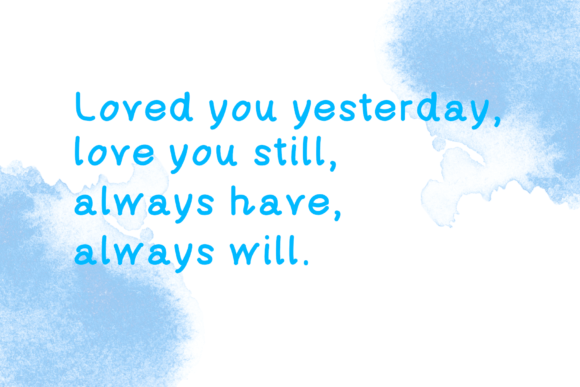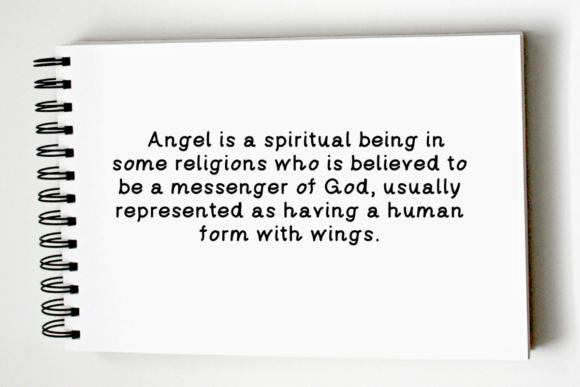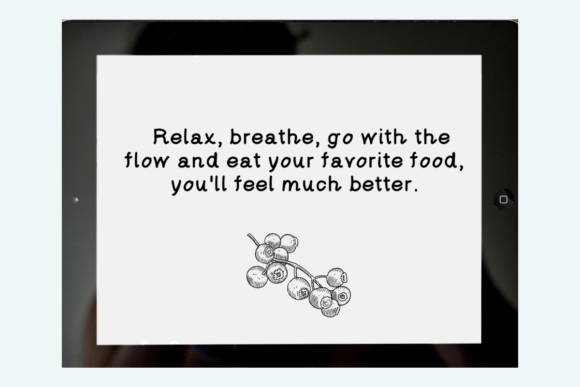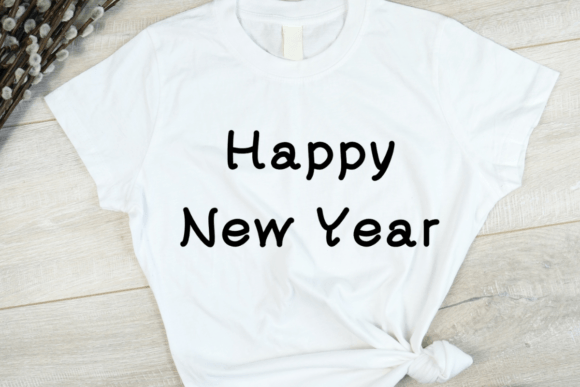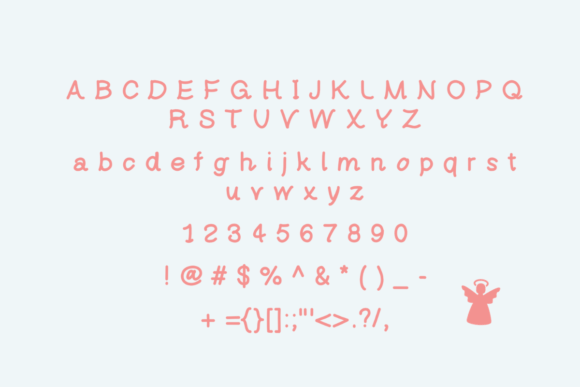
The Heavenly Charm of Angel Font: A Designer’s New Best Friend
I’ll never forget the time I was working on a project for a children’s book and I just couldn’t find the right font. I wanted something that would speak to my young audience, something playful, yet elegant. That’s when I stumbled upon Angel Font, a handwritten font made from actual handwriting. It was love at first sight! ✨
As I explored its features, I knew I had found the perfect fit for my project. In this article, I’ll share with you why Angel Font has become a staple in my design toolkit, its unique characteristics, and how to make the most of it in various design platforms.
An Honest Review of Angel Font
- ✅ Perfect for Kids’ Projects: Angel Font is designed from actual handwriting, making it incredibly relatable and friendly for young audiences.
- ✅ Elegant yet Playful: It strikes the perfect balance between being elegant and playful, making it versatile for various creative projects.
- ✅ Easy to Read: The font is clear and legible, even at smaller sizes, which is a huge plus for projects that require a lot of text.
- ✅ OpenType Features: Angel Font comes with a range of OpenType features, including glyphs and stylistic alternates, allowing for a high degree of customization.
While Angel Font is fantastic for many projects, there are a few things to keep in mind: 🤔
- ⚠️ Limited Use in Formal Projects: Due to its playful nature, Angel Font might not be the best choice for very formal projects or those requiring a more traditional look.
- ⚠️ Requires Some Kerning Adjustments: Like many handwritten fonts, it may require some manual kerning adjustments to ensure optimal readability, especially in larger text blocks.
The Story Behind Angel Font
Angel Font was inspired by the beauty of everyday handwriting. Its creator aimed to capture the essence of human touch in digital form, making it an excellent tool for projects that require a personal and warm feel. The font’s design is a testament to the power of handwriting in digital design, bringing a sense of authenticity and charm to any project.